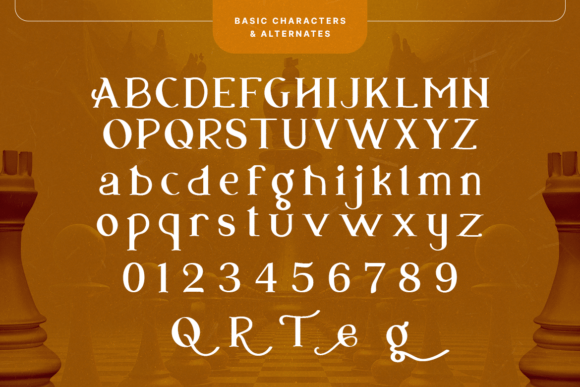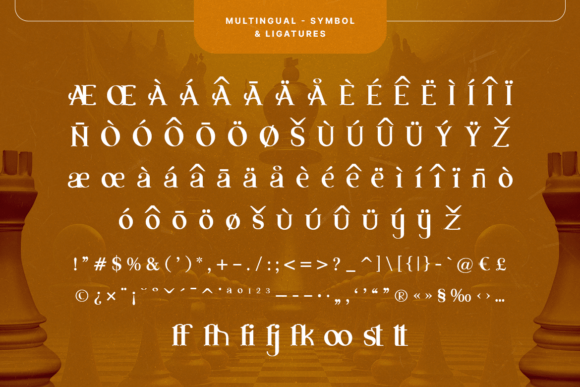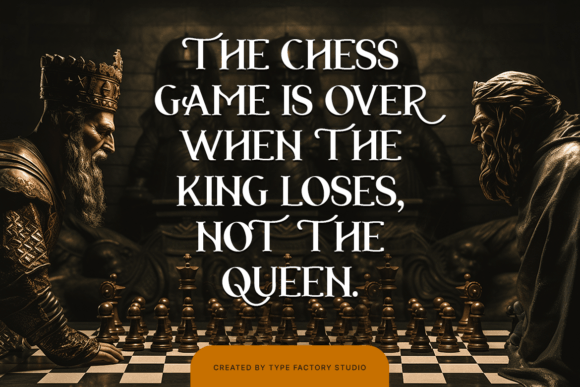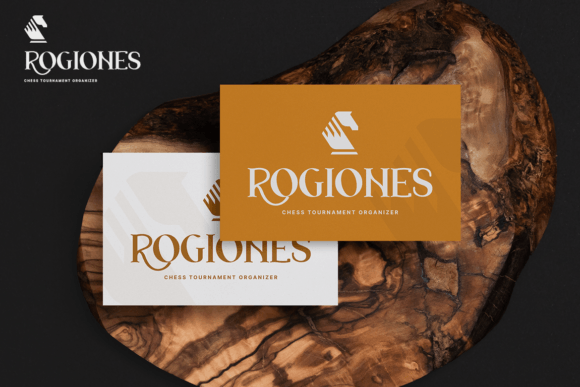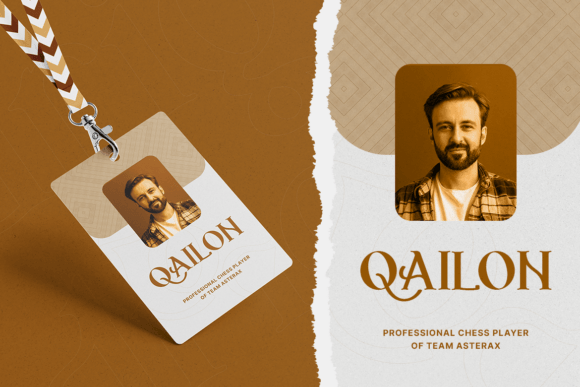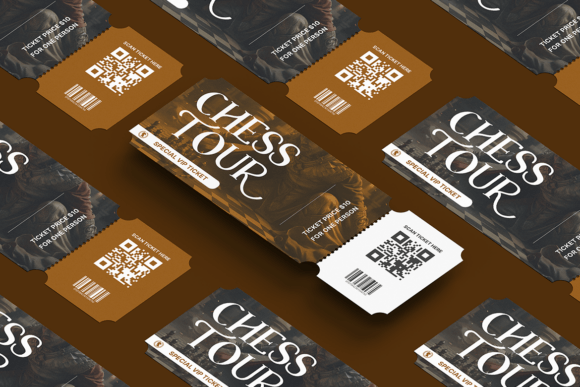
Discover the Elegance of Brilliant Font: Elevate Your Designs with Sophistication
In the world of typography, the right font can make all the difference in creating a lasting impression. For designers and crafters seeking to add a touch of luxury and sophistication to their projects, Brilliant Font is an exceptional choice. This modern serif typeface is designed to exude elegance and refinement, making it perfect for high-end branding, editorial designs, and luxurious packaging.
The Essence of Brilliant Font
Brilliant Font is a masterful blend of classic serif elements and contemporary styling. Its refined serifs and balanced letterforms create a harmonious visual experience that is both timeless and fresh. This typeface is meticulously crafted to convey a sense of class and professionalism, making it an ideal choice for designers who want to elevate their projects to the next level.
Key Features of Brilliant Font
- Refined Serifs: The serifs in Brilliant Font are carefully designed to add a touch of sophistication to any project. They are subtle yet distinctive, providing a clear and elegant visual hierarchy.
- Balanced Letterforms: Each letterform in Brilliant Font is meticulously crafted to ensure balance and harmony. This balance makes the typeface highly legible and visually appealing, whether used for headlines, logos, or body text.
- Timeless Appeal: Brilliant Font combines the classic elements of serif typography with a modern twist. This combination gives the typeface a timeless quality that will remain relevant for years to come.
- Versatility: Whether you are working on a luxury brand identity, an editorial design, or a high-end packaging project, Brilliant Font is versatile enough to meet your needs. It can be used for headlines, logos, body text, and more.
Applications of Brilliant Font
Brilliant Font is incredibly versatile and can be used in a variety of design applications. Here are some of the most popular uses:
- High-End Branding: Create a lasting impression with a luxury brand identity that exudes elegance and sophistication. Brilliant Font is perfect for logos, business cards, and other brand materials.
- Editorial Designs: Add a touch of class to your editorial designs, such as magazines, newspapers, and books. Brilliant Font is highly legible and visually appealing, making it ideal for body text and headlines.
- Luxurious Packaging: Elevate your packaging designs with a typeface that conveys luxury and sophistication. Brilliant Font is perfect for product labels, packaging inserts, and more.
Why Choose Brilliant Font?
With so many typefaces available, why choose Brilliant Font? Here are a few compelling reasons:
- Elegance and Sophistication: Brilliant Font is designed to exude elegance and sophistication, making it perfect for high-end projects.
- Timeless Appeal: The typeface combines classic serif elements with a modern twist, giving it a timeless quality that will remain relevant for years to come.
- Versatility: Brilliant Font is incredibly versatile and can be used in a variety of design applications, from branding and editorial designs to packaging and more.
- Professionalism: This typeface adds a touch of class and professionalism to any project, making it an ideal choice for designers who want to create a lasting impression.
Brilliant Font is an exceptional typeface that offers a perfect blend of elegance, sophistication, and versatility. Whether you are working on a high-end branding project, an editorial design, or a luxurious packaging project, this modern serif typeface is sure to elevate your designs to the next level. With its refined serifs, balanced letterforms, and timeless appeal, Brilliant Font is an ideal choice for designers and crafters seeking to add a touch of luxury and sophistication to their projects.